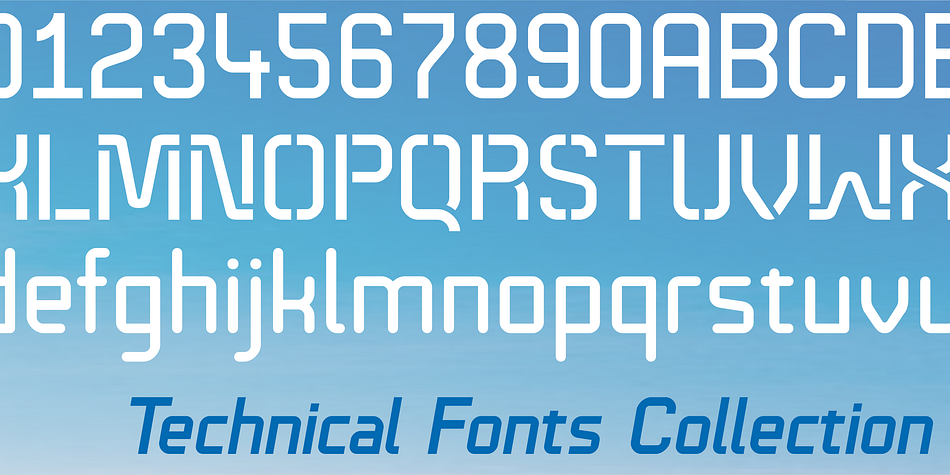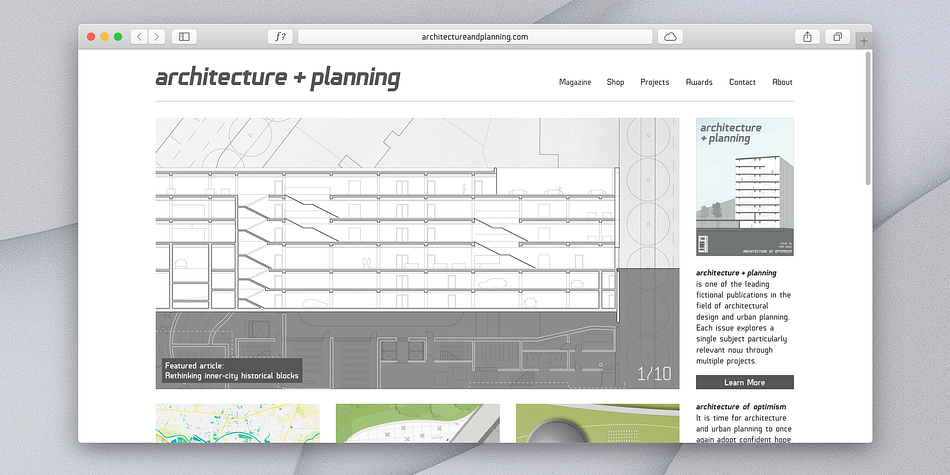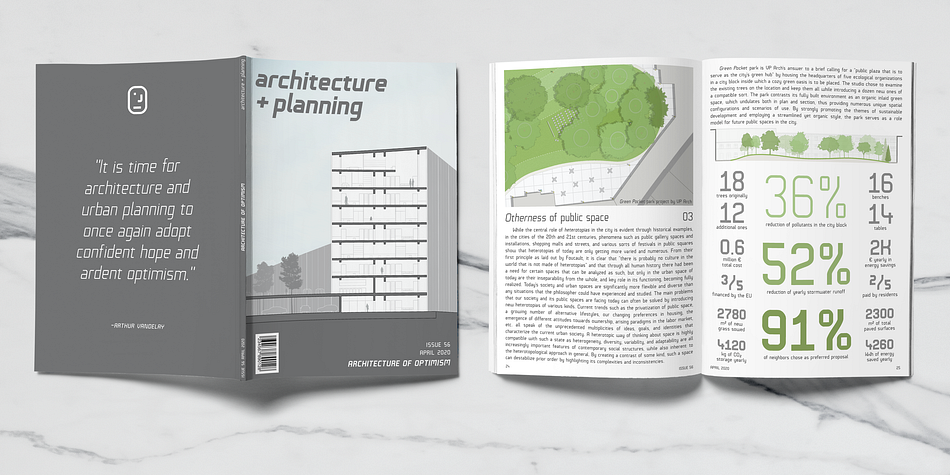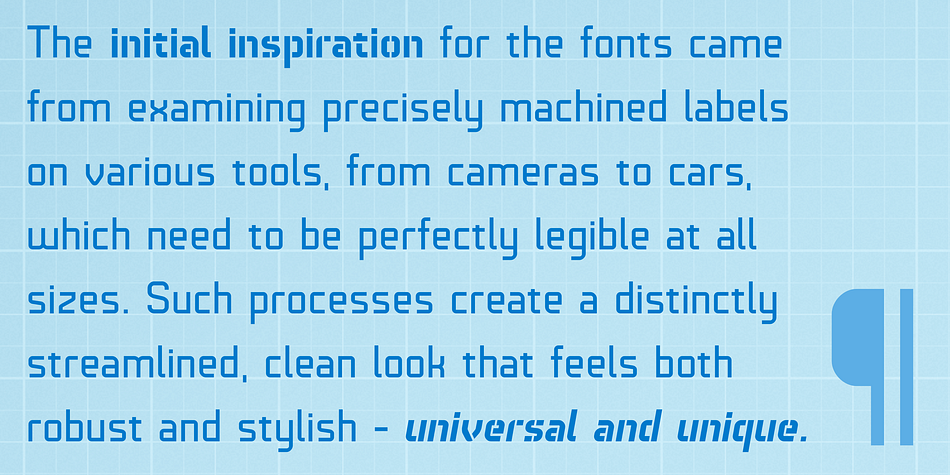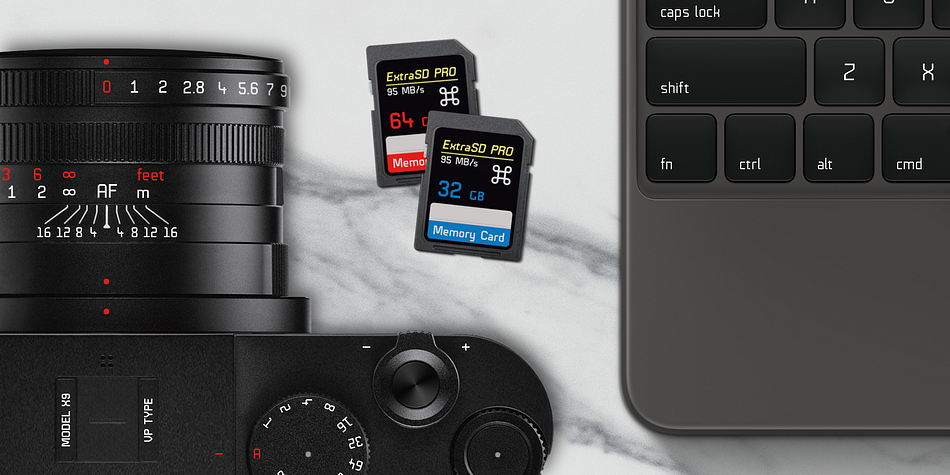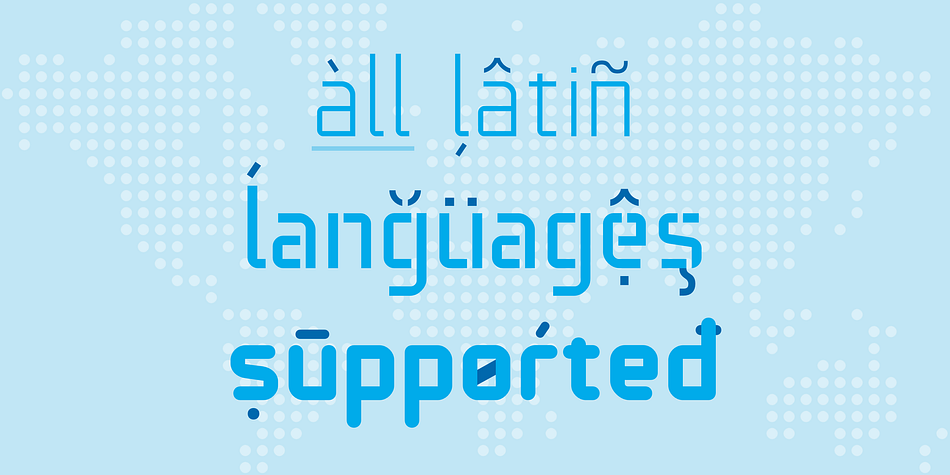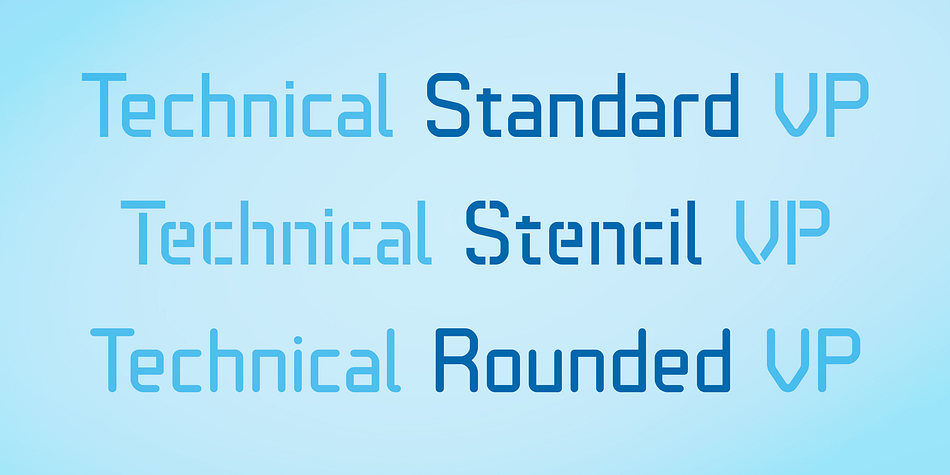
Technical Fonts Super Family
Designed by Val Kalinic, Technical Fonts Collection is a display sans and stencil font collection published by VP Type.
Technical Fonts Collection is a superfamily of 30 fonts that share a technical look and feel.
The resulting group is a toolbox of versatile type bringing together Standard, Rounded, and Stencil styles.
The initial inspiration for the design of the fonts came from examining the various kinds of precisely machined labels on tools from cameras to cars, which need to be perfectly legible at all sizes. The unique streamlined look such processes achieve was reinterpreted and refined manually for two years. The result is at the same time robust and stylish, both universal and unique, with 30 styles across 3 families offering great versatility.
All styles in this collection include an extensive Latin character set, the Greek alphabet, multiple sets of numerals, a large set of punctuation marks, and other symbols. With 1120 glyphs in each style, full support for all languages based on the Latin alphabet is guaranteed. To make the fonts even more powerful, 20 OpenType features are included in every font. These include multiple vertical positions, diagonal fractional forms, an optional slashed zero, separate old-style and lining figures, small capitals, and contextual alternates.
Technical Standard VP
Technical Rounded VP
Technical Stencil VP